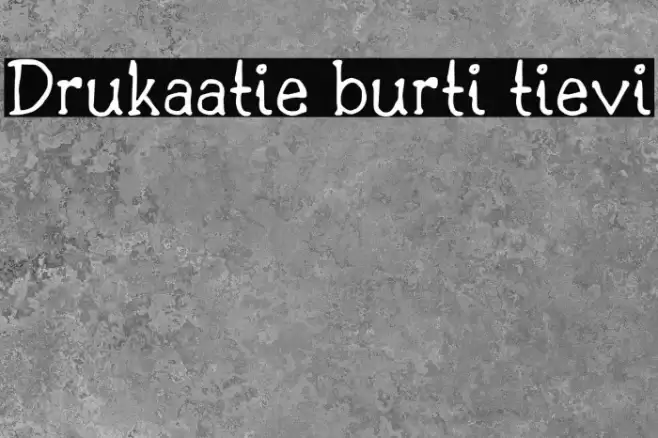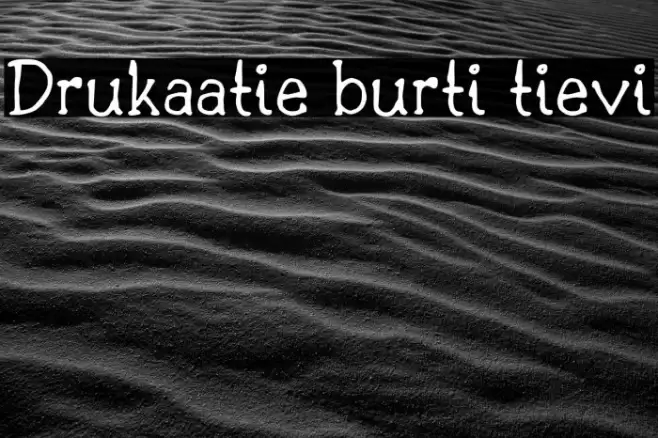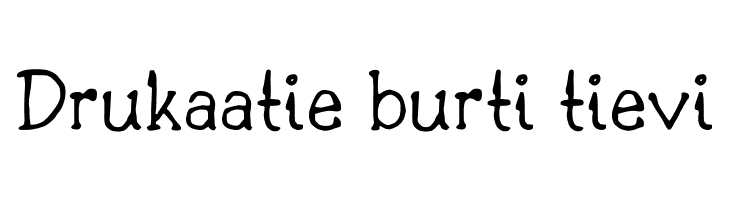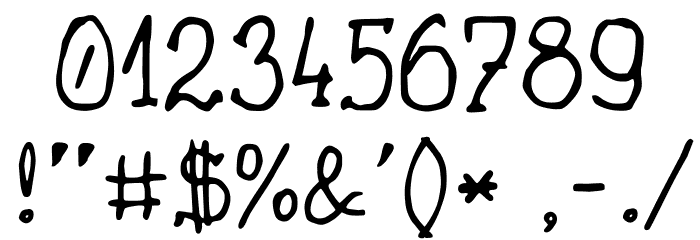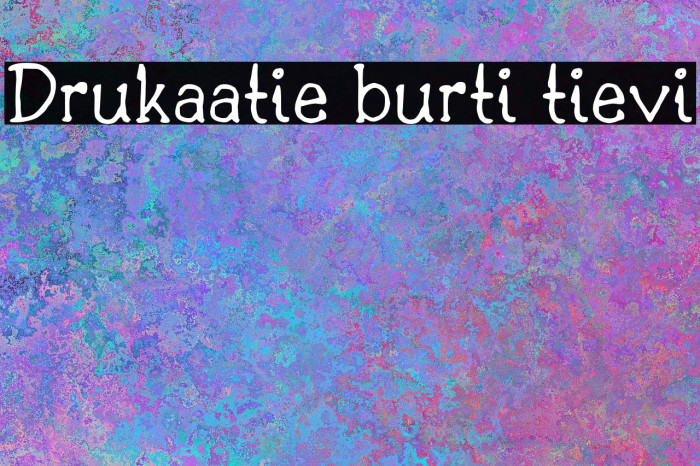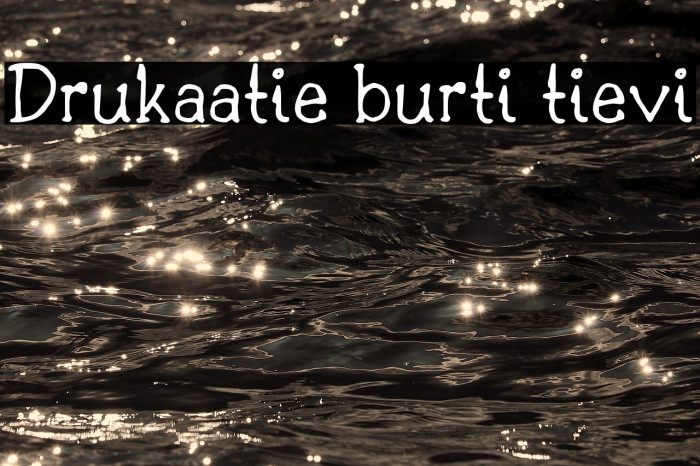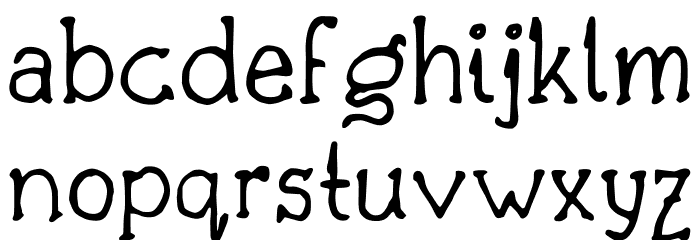
Drukaatie burti tievi Font
Drukaatie burti tievi Description
This font features a playful and whimsical design, characterized by its irregular and hand-drawn appearance. The letters have a slightly uneven baseline, giving them a lively and dynamic feel. The strokes are moderately thick with a consistent width, contributing to a bold yet approachable look. The font includes both uppercase and lowercase letters, numerals, and a variety of special characters, making it versatile for various uses. Its unique style is reminiscent of casual handwriting, making it ideal for projects that require a personal touch.
A playful, hand-drawn font with a whimsical and dynamic style from Handwritten fonts.